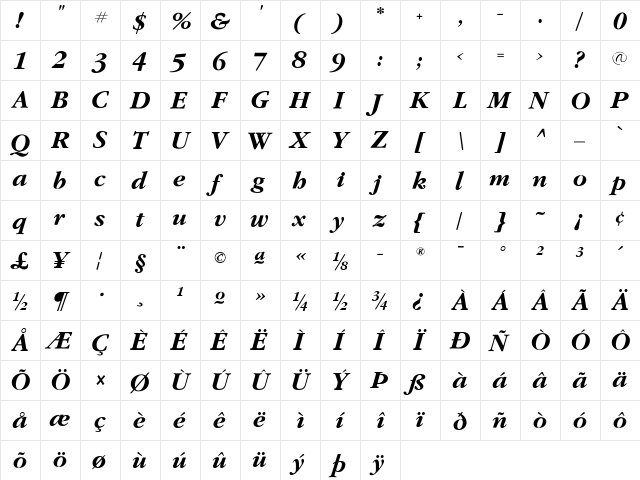
GaramondFLF-BoldItalic Regular Font Preview
Design Context for GaramondFLF-BoldItalic Typeface
GaramondFLF-BoldItalic offers clean, dependable letterforms without strong stylistic allegiance, making it a practical choice for designers who need flexibility. Its italic angle brings a sense of urgency and motion to the letterforms. The heavy weight commands attention and anchors typographic hierarchies.